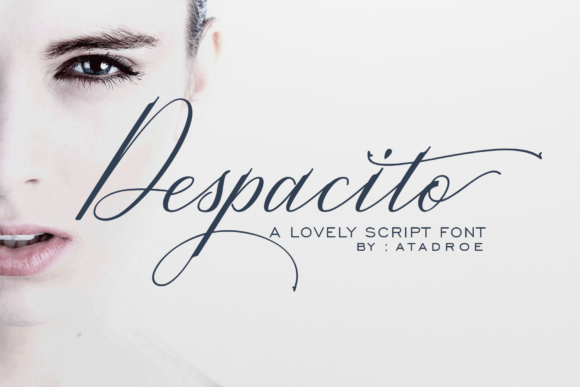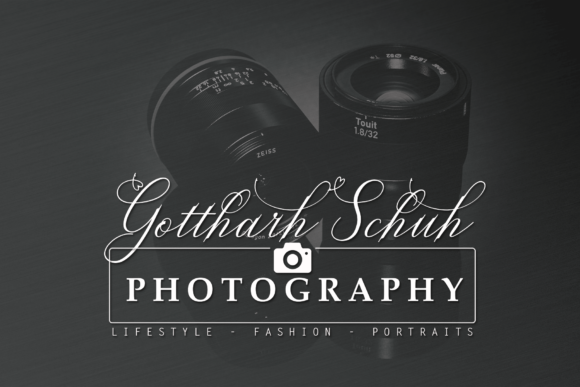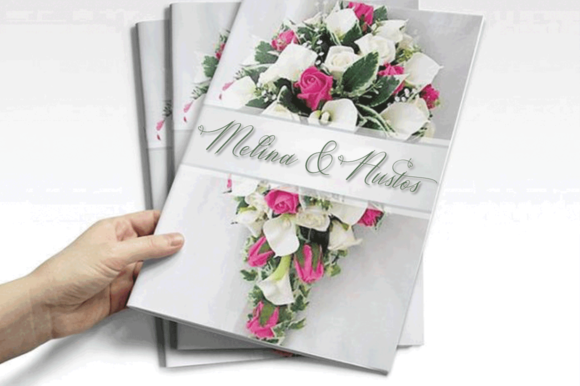
About Despacito Font
Despacito is an incredibly lovely and flowing handwritten font. It looks beautiful on wedding invitations, thank you cards, quotes, greeting cards, logos, business cards and every other design which needs a handwritten touch.